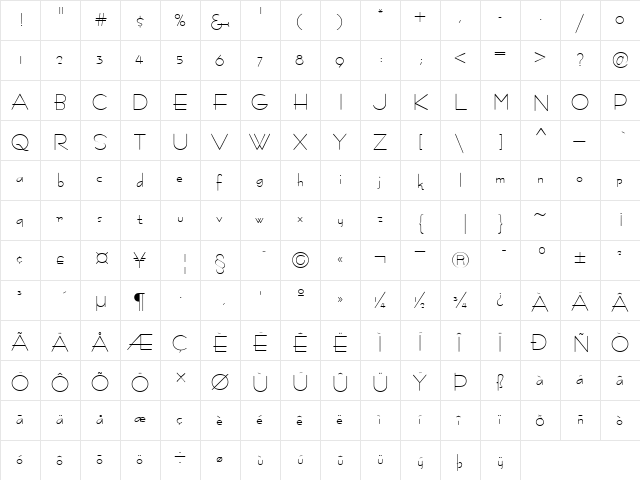
PT Fineline Normal
Design Context for PT Fineline Typeface
PT Fineline takes a measured approach to typography — its balanced proportions and neutral character make it a reliable workhorse for both digital and print work.